BRITISH STANDARD TYPE was commissioned by Turner Prize-winning artist ELIZABETH PRICE to create multiple custom display typefaces for SLOW DANS, her most ambitious work to date. This trilogy of multi-channel video works combines archival footage, graphics, speech, and sound to explore social and sexual histories through a digital lens. The typefaces were crafted to merge organic and digital languages, becoming central assets within the large-scale projection artworks.
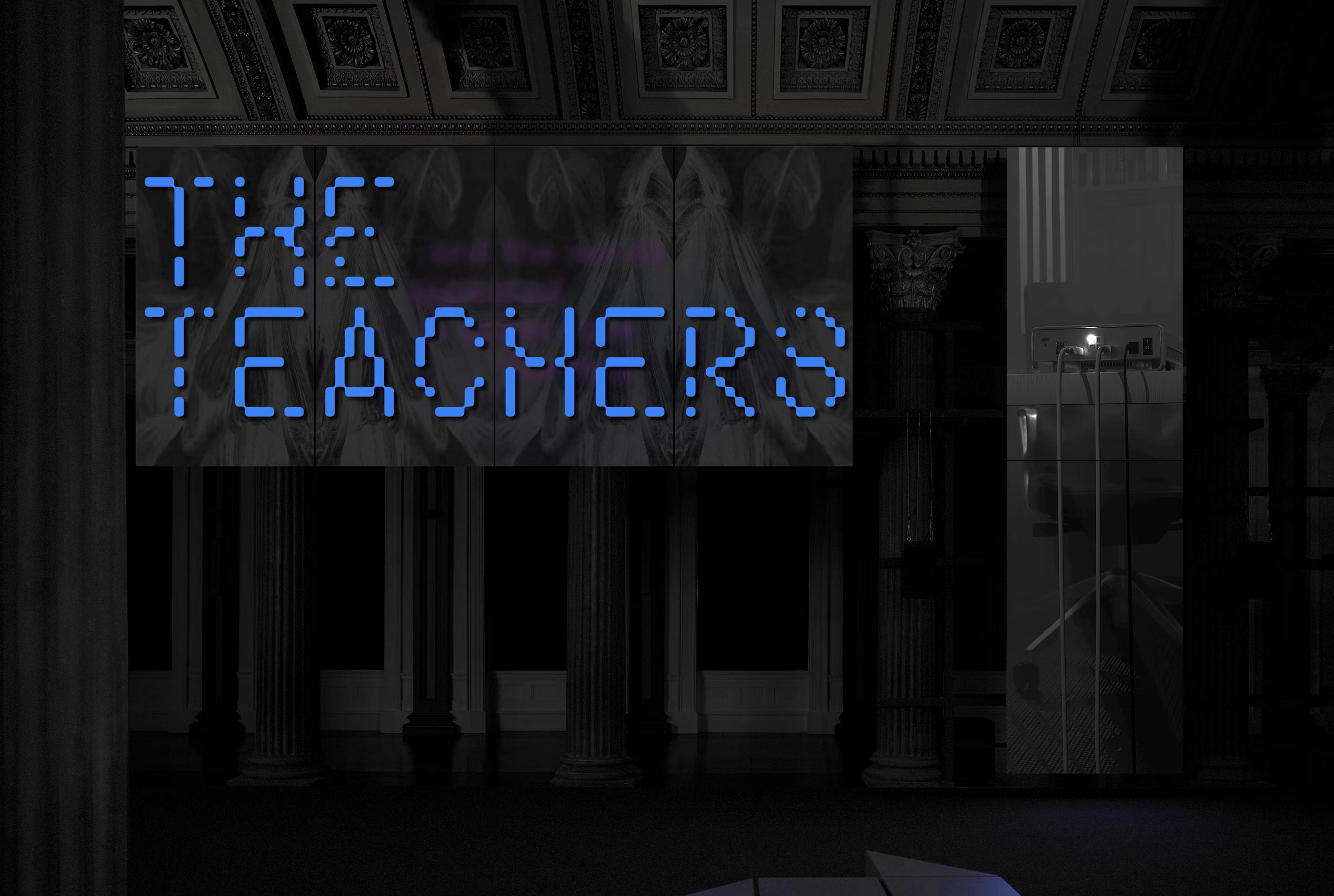
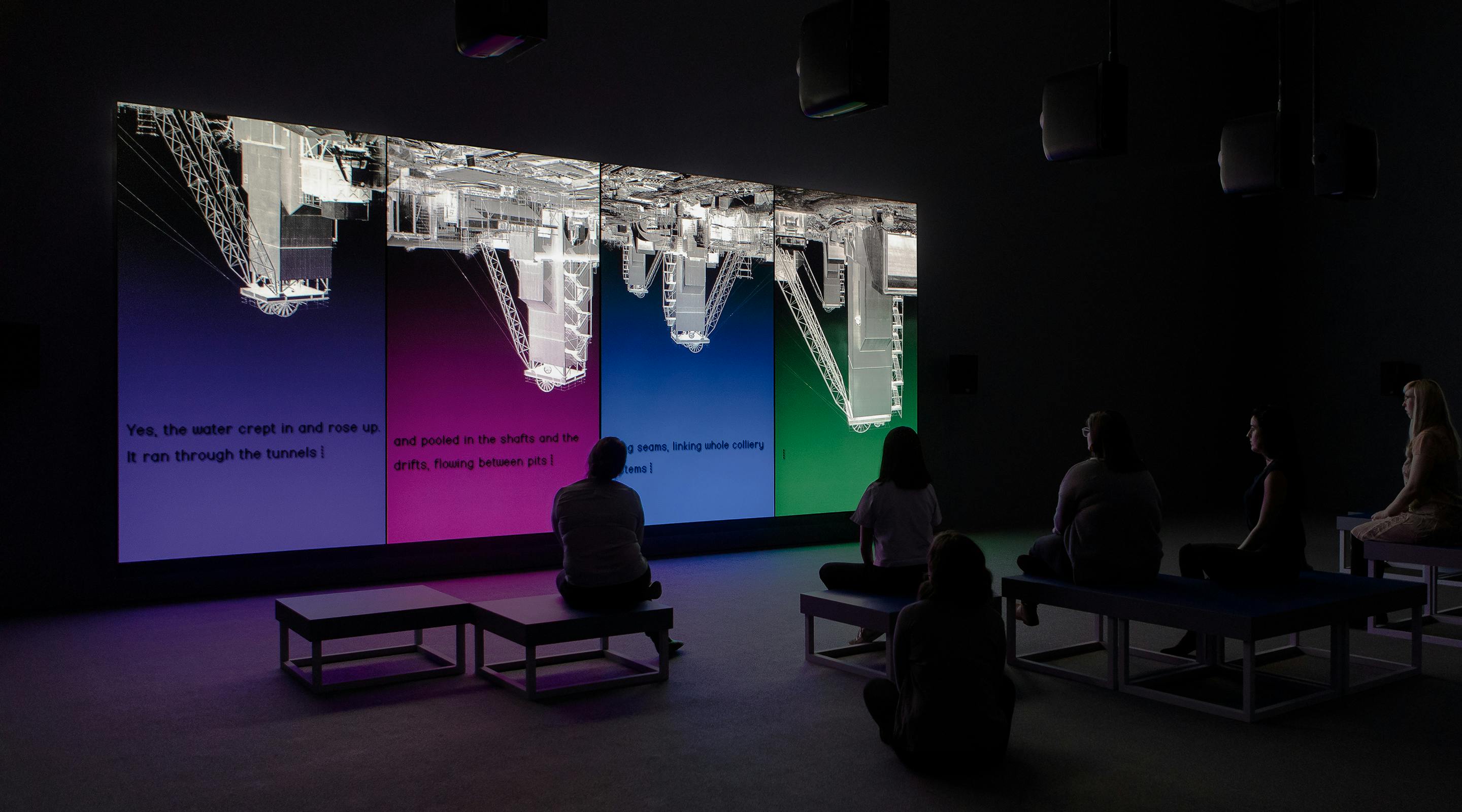
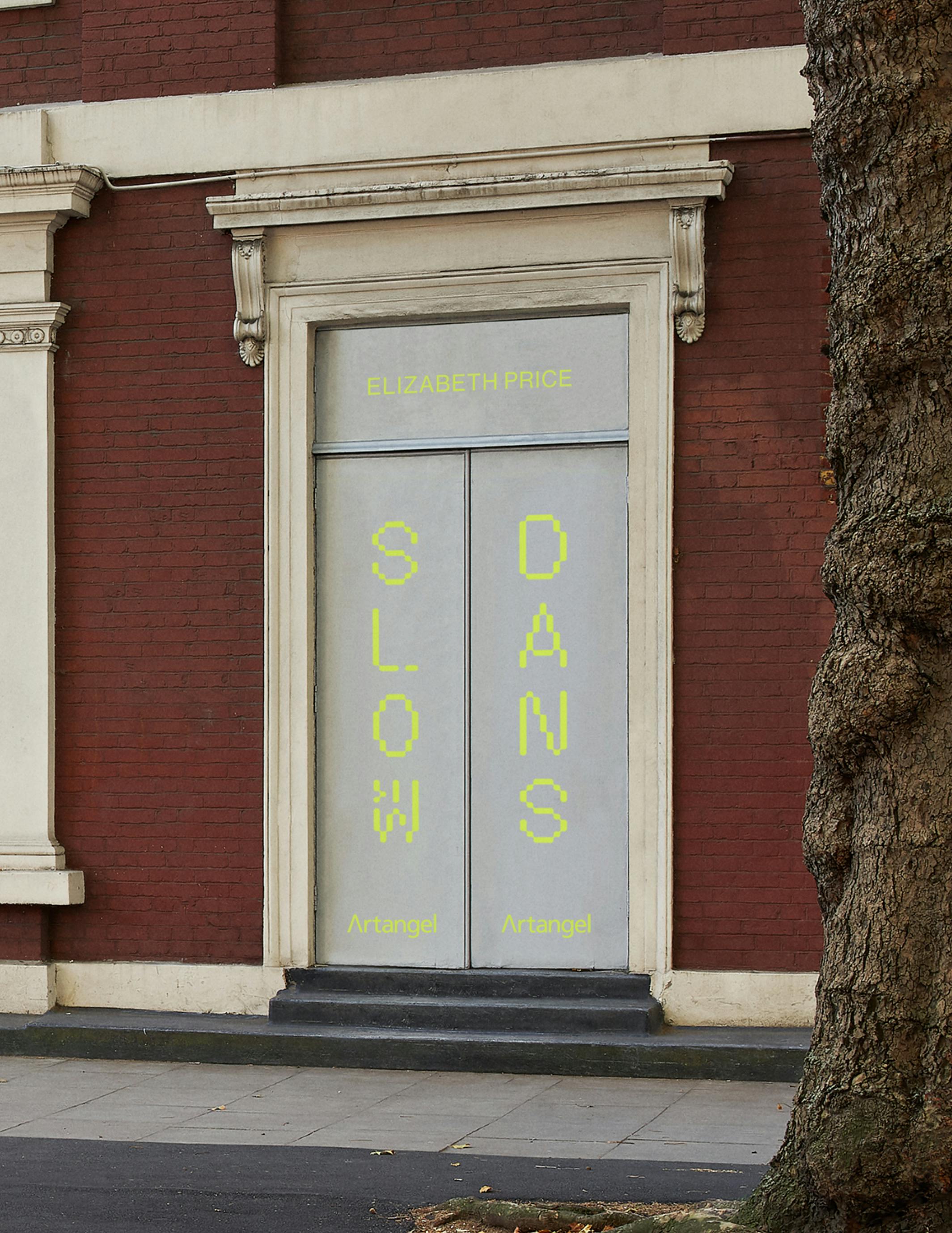
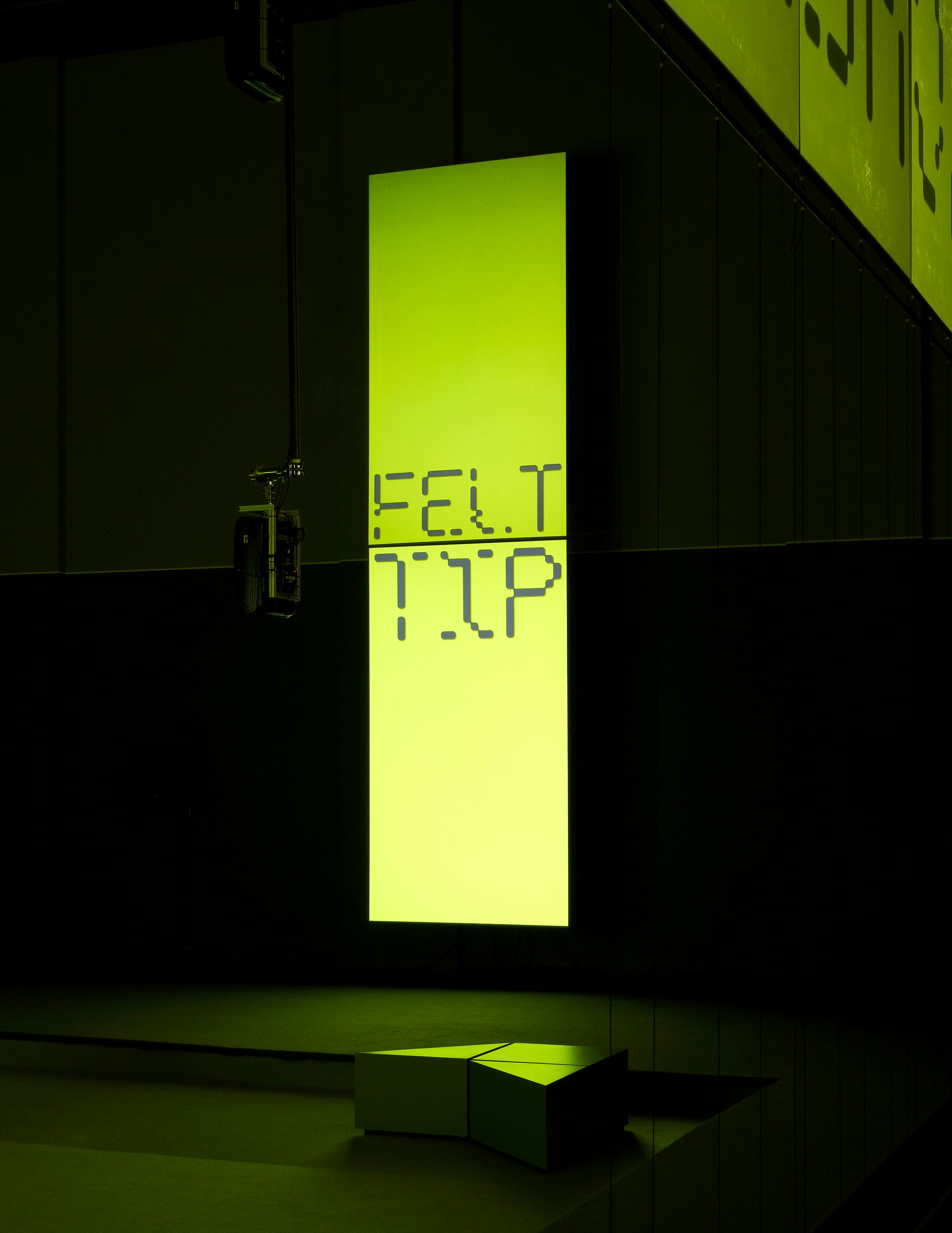
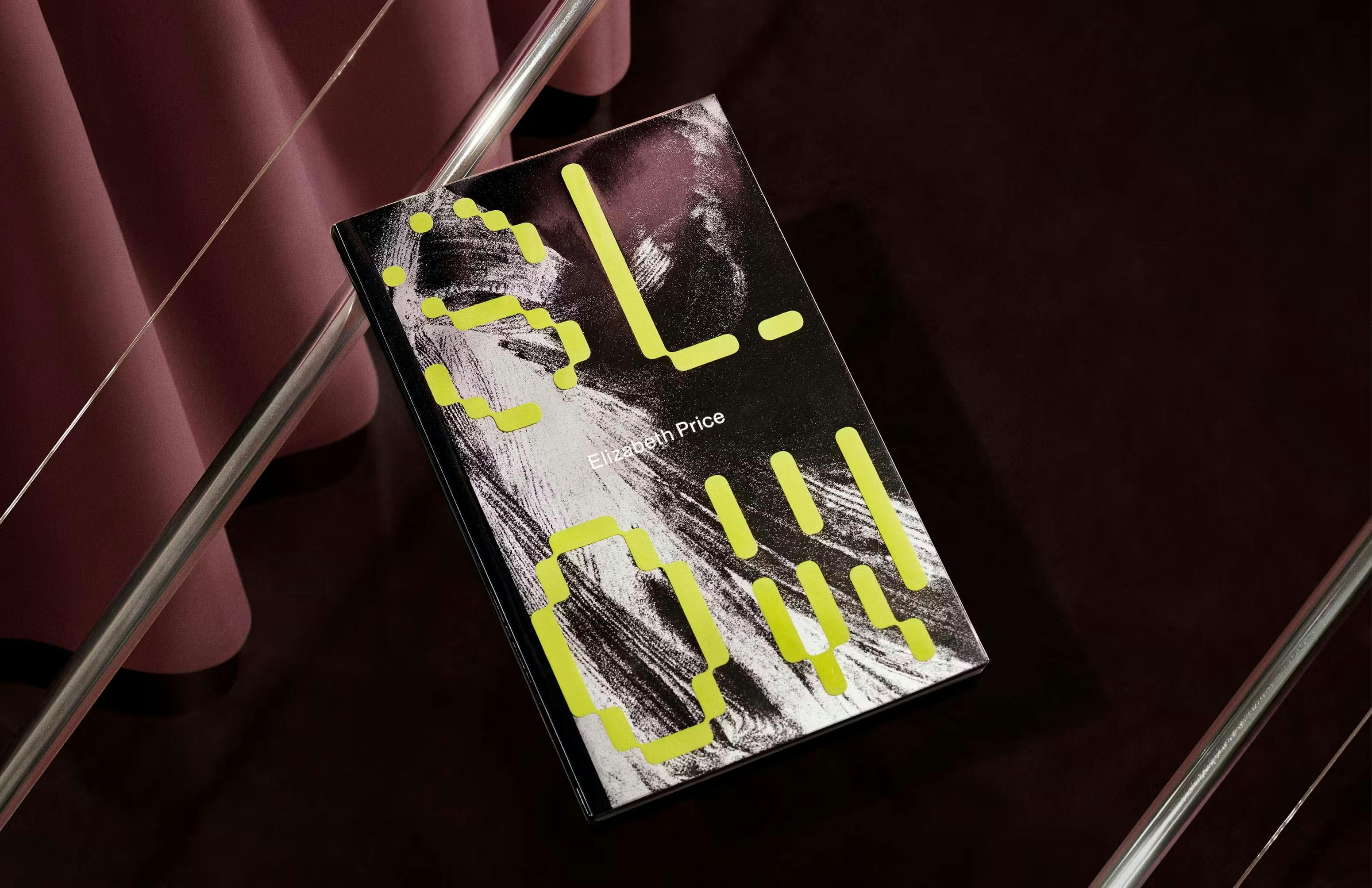
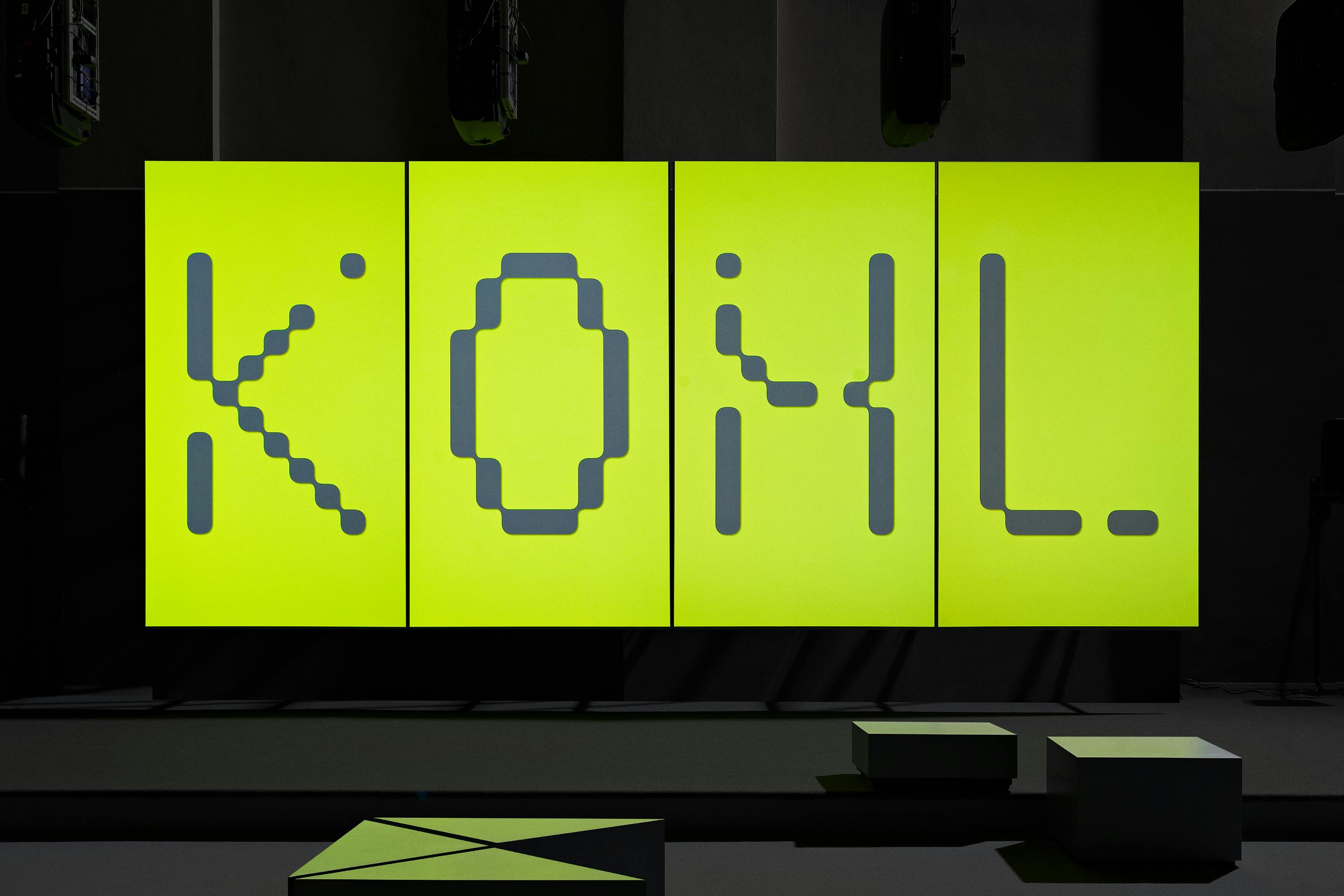
Working closely with the artist, BRITISH STANDARD TYPE developed multiple hybrid-pixel typefaces, drawing inspiration from the large screens used in the artworks to guide the construction of the letterforms. A pixel-blending process was employed to create a unique hybrid digital language. The headline version of the typeface includes three sets of alternates with varying degrees of pixel degradation, shifting in harmony with the evolving moods of the artworks. To complete the family, a lowercase, proportionally spaced version was designed for extended reading.
SLOW DANS is a collaboration between Artangel, Film and Video Umbrella, Nottingham Contemporary, the Whitworth, University of Manchester, and Walker Art Center, Minneapolis. The typefaces are used across the trilogy of video works, exhibition signage, unique artworks, and the accompanying monograph. The SLOW DANS trilogy has been displayed internationally, earning 5-star reviews in the press.
Typeface: FT Headline & FT Text
Commissioner: Elizabeth Price
Stylistic Alternates: 3
2 Styles: Regular Headline & Text
Coverage: Latin-A Encoded
Classification: Pixel Sans Serif